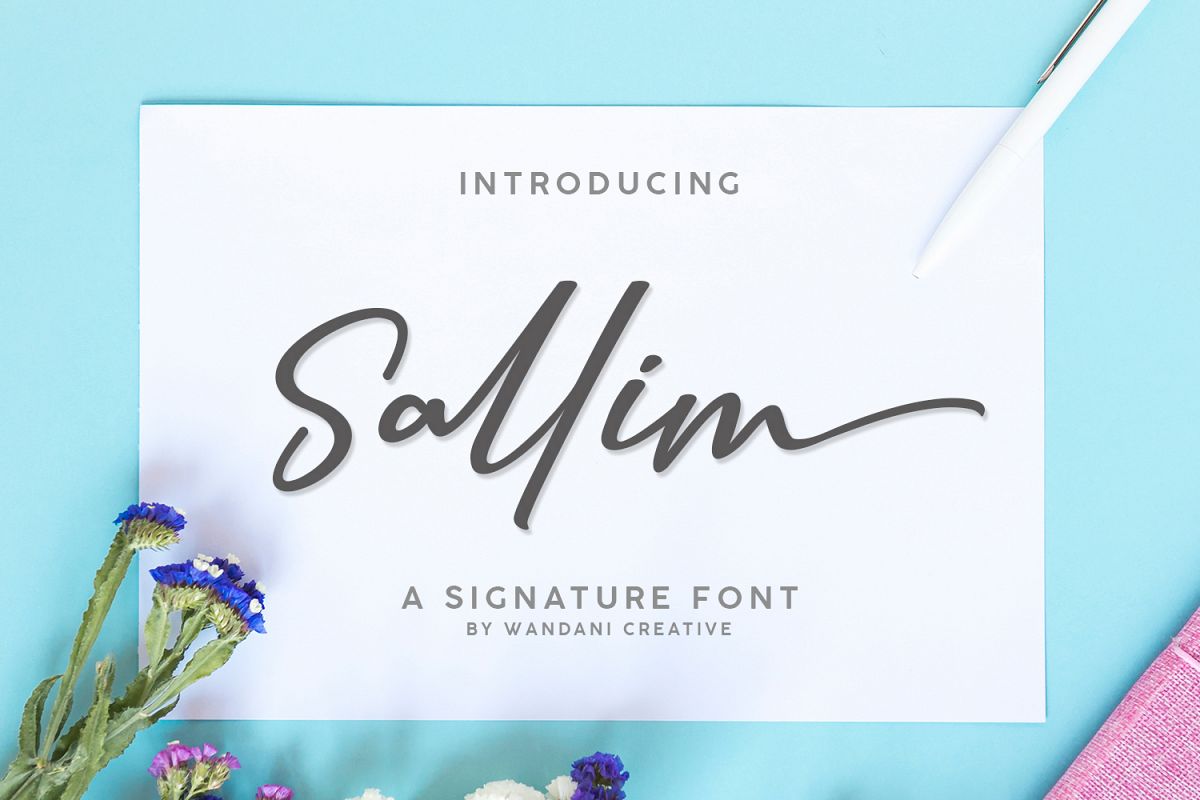
Sallim | Signature Font
Sallim-Regular
Introducing!
the Sallim font , a font that is very fresh and unique style handmade. Sallim font is perfectly suited to logo, stationery, poster, apparel, branding, advertisements, product packaging, product designs, labels, wedding invitation, card, tagline, layout design, and much more !!.